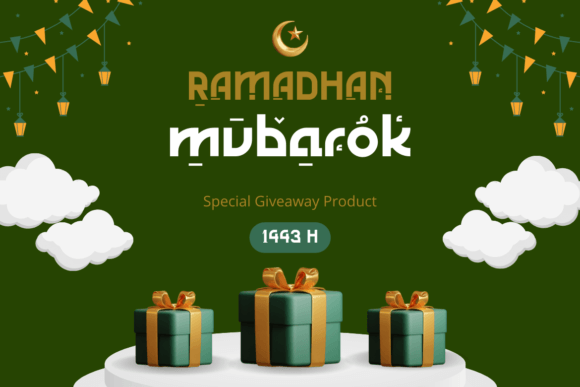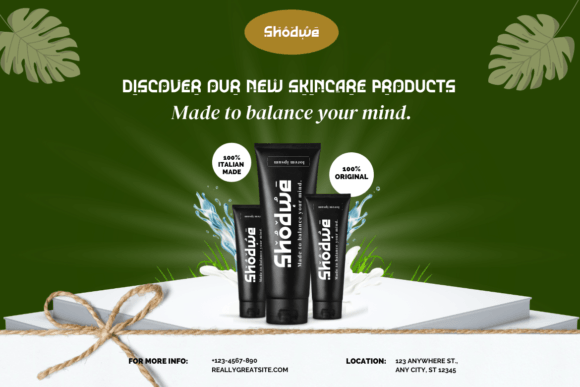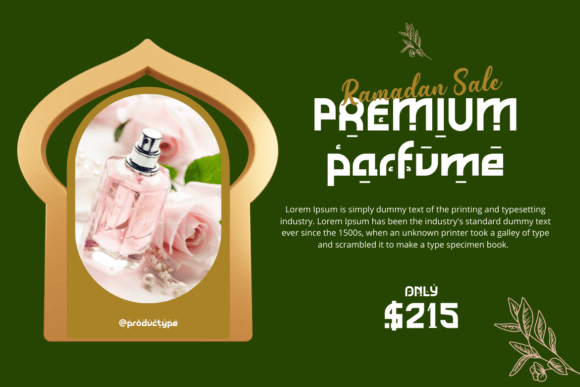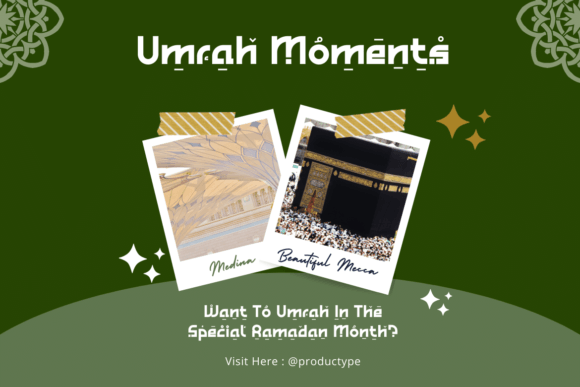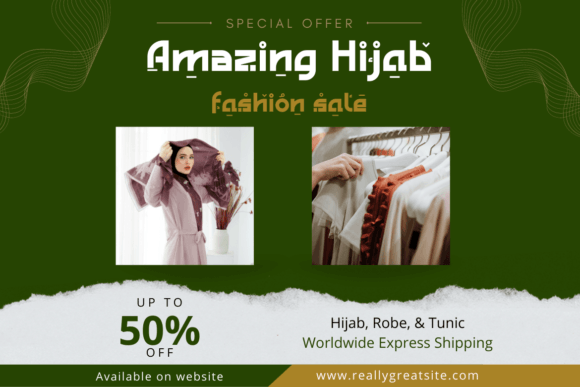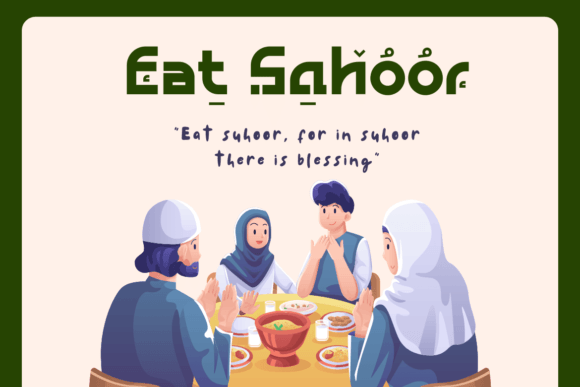
Introduction to Reywak Font
Reywak is an impactful new font that merges the clean look of sans-serif fonts with the powerful symbolism of Arabic characters.
Its readability makes it the perfect choice for headlines and long reads, while the unique allure of its arabesque design lends itself beautifully to posters and greetings Reywak: use it to make your content a cut above the rest.